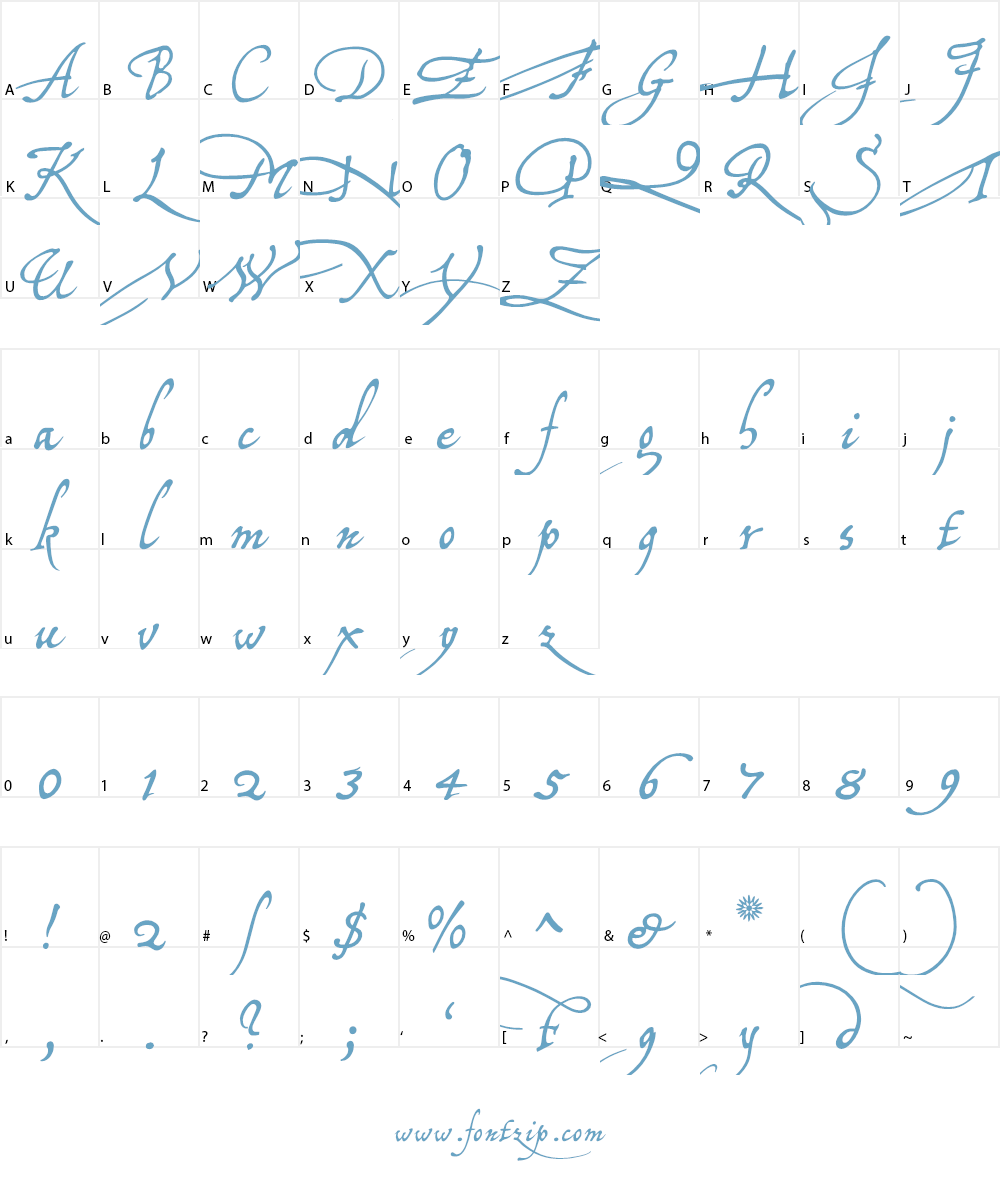
The events that drove Tycho Brahe out of Hven, and out of Denmark, in 1597, seem to be a rather sordid affair. Most sources blame Tycho himself for it -- he had developped primadonna attitudes, he had been mean to his subjects at Hven, and so on. However, there can be no doubt that king Christian IV was the person responsible. All the alleged wrongs that were laid at Tycho's door, had existed for quite some time. Yet Christian IV's father seems to never have cared about them. It was Christian IV who jumped at every pretext that allowed him to get rid of Tycho -- even reaching as low as having Tycho's morganatic wife called, Tycho's mistress, which is the more upsetting, since Christian, some years later, took a morganatic wife himself! Certainly, Christian never gave any consideration to peasants' and fishermen's complaints, except when it fit his purpose (otherwise, he might have been obliged to boot a great deal of his nobles out of his kingdom). In Tycho's case, it did. Christian IV regarded Tycho as a welcome occasion to economize, and his device seems to have been, from the start, 'war, not science'.
Well, after king Christian had cancelled, first Tycho's Norwegian fief, and then his pension, Tycho retired from Hven, first to Copenhagen, then to Rostock, and then to the castle of Wandsbeck, near Hambourg. At last, he accepted an offer from the German emperor, Rudolf II, and went to settle at Prague, where Rudolf resided (and, guess what? Rudolf, though a rather disturbed person himself, never felt offended by Tycho's alleged lack of submission, and primadonna ways, either). In the interim, at Wandsbeck, after leaving the service of a king who had plenty of money, but wouldn't give him any, and before entering the service of an emperor who would have given him plenty of money, but hadn't any, Tycho wrote his famous parting poem, AD DANIAM ELEGIA -- an eloquent diatribe wherein he complains darkly about ingratitude, intrigues, envy, malice, and ignorance. He, too, didn't dare to blame the king. It was that odious court camarilla that was out to undo him...
An autograph version of Tycho's Elegy, three and a half pages long, dated "1597 20 die Octobris", is on show among the digital exhibits of the Royal Library of Denmark (= Det Kongelige Bibliotek). This, now, is really Tycho's handwriting. More: if it's his handwriting, it is his calligraphy. It's a studied humanistic cursive, containing no traces of any local bastard style, the middlezone looking rather compressed, and angular, whereas many of Tycho's capitals are daring, swashy, and very roomtaking. When I was designing my font, based on Tycho's manuscript, his capitals were frequently off-limits -- e.g., there is no way to reproduce an I that cuts down through the next three lines, in a font! Luckily, Tycho is nowhere shy of capitals; for many of them, it is just pick and choose -- but of course, the poem being in Latin, I had to invent a K, Y, Z, X, and U. Since the name of Wandsbeck is mentioned in the text, Tycho even provided a W, though it shows that, with regard to this character, he may have been lacking experience. BTW, considering at what moment in his life Tycho wrote his elegy, it's fascinating to observe, how so many of his initals are giving the impression that they are carrying a huge, heavy burden around.
There is no number sign in this font. In its place, you'll find a long s. Other extras in this font are:
an alternate g on the 'less than' sign
an alternate y on the 'greater than' sign (that should be used with the regular g)
a swashed t on the right bracket
an alternate d, turned left, on the left bracket
an ending e on the right curly bracket
an ending n on the left curly bracket (can also be used as an u)
a swashed k on the bar and broken bar sign
a swash on the ASCII tilde. It has to be typed like an accent, before the letter to which it belongs, and looks nice with b, f, h, both ks, and l, especially before the second of a double l. Of course, Tycho would not use that. I made it up, according to the swashed t, which was really penned by Tycho.
a double long s on the long s sign.
The ASCII tilde has been relocated to the 'almost equal to' sign.
The image on the micro sign is my rendition of the Brahe coat of arms, and I cheated with the font name: the y at the end of 'Elegy' is the alternate one, since the regular g and y don't look well together.